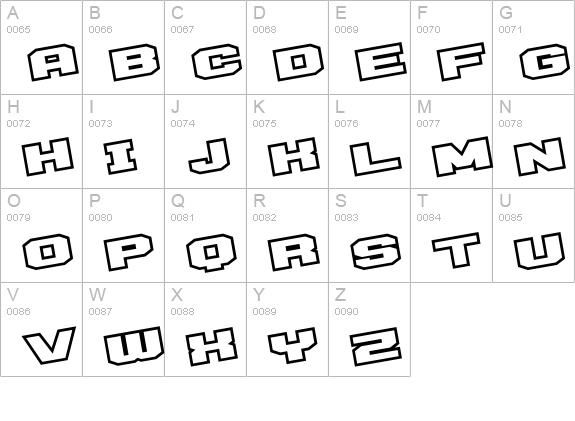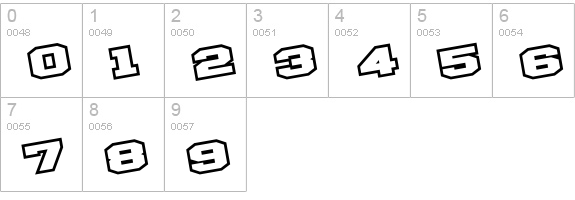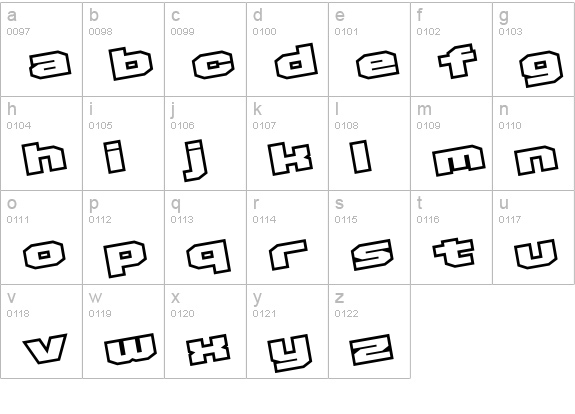
D3 Egoistism outline leaning Font Details
Introducing the captivating D3 Egoistism outline leaning font, a striking creation that will elevate your designs to new heights. With its unique and edgy outline leaning style, this font exudes a sense of confidence and sophistication that is sure to make a lasting impression. The D3 Egoistism outline leaning font is perfect for a wide range of design projects, from branding and logos to titles and headlines. Its bold and attention-grabbing aesthetic will instantly captivate your audience, ensuring that your message is delivered with maximum impact. What sets this font apart is its versatility. Whether you're going for a modern and futuristic look or a more retro-inspired design, the D3 Egoistism outline leaning font effortlessly adapts to any style or concept. Its clean lines and sharp angles create a visually pleasing composition that is both visually striking and easy to read. But the best part? The D3 Egoistism outline leaning font is available for free download at FontsMarket.com. This means that you can add a touch of elegance and sophistication to your designs without breaking the bank. Simply visit FontsMarket.com and start exploring the endless possibilities that this remarkable font has to offer. So why wait? Download the D3 Egoistism outline leaning font today and unleash your creativity like never before. With its bold and distinctive style, this font will undoubtedly become a valuable asset in your design toolbox, allowing you to create stunning visuals that leave a lasting impression.